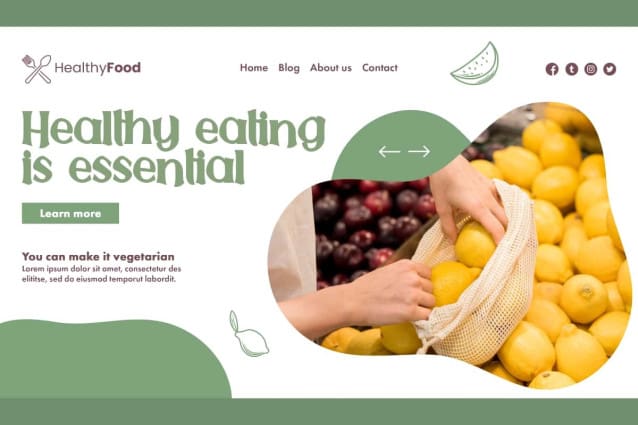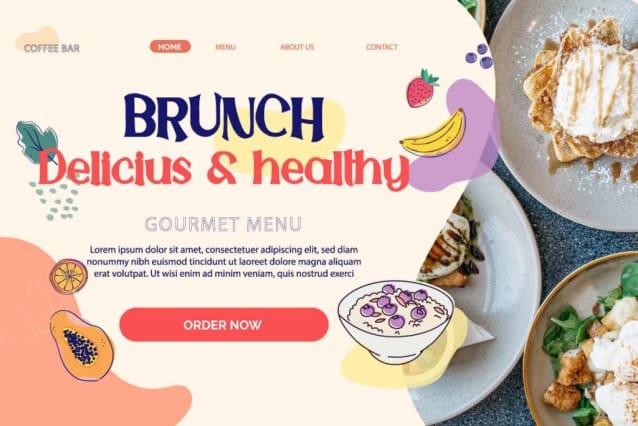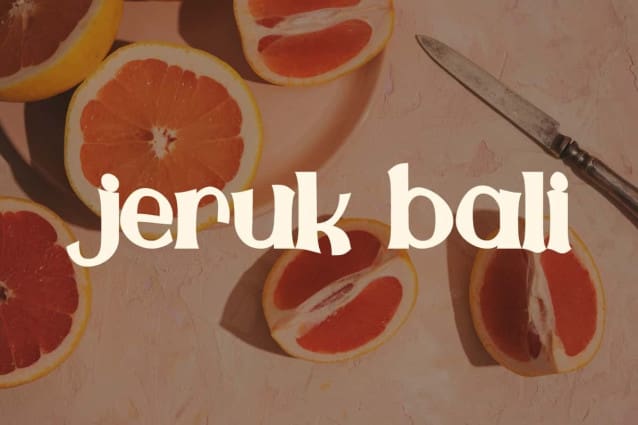
Jeruk Bali Font
Jeruk Bali Font is a refreshingly modern display font in a classic letterform that creates a visually appealing aesthetic. Carefully crafted to create a timeless look and exude a calm charm that is perfect for both print and digital applications. Use it to enhance your branding logo, brochures, greeting cards, headings, labels, menu flyer, posters, websites, and so much more!
Jeruk Bali Font will produce a weighty and cohesive look that captivates and inspires. Enhance the overall sophistication of the design with a bolder font style and creatively adapt perfectly to your vision. This font contains a complete set of Basic Characters Uppercase and Lowercase, Numbers, Symbols and Punctuation. Whether used for cafes, food court, fruit juice stand, graphic design, photography, restaurant, summer festival, and more.